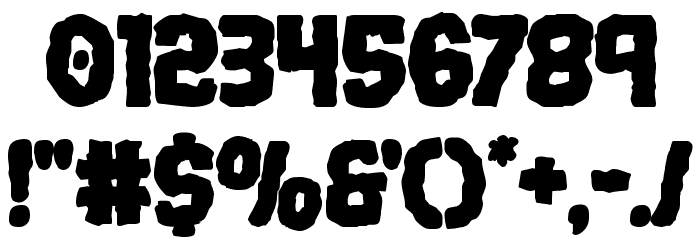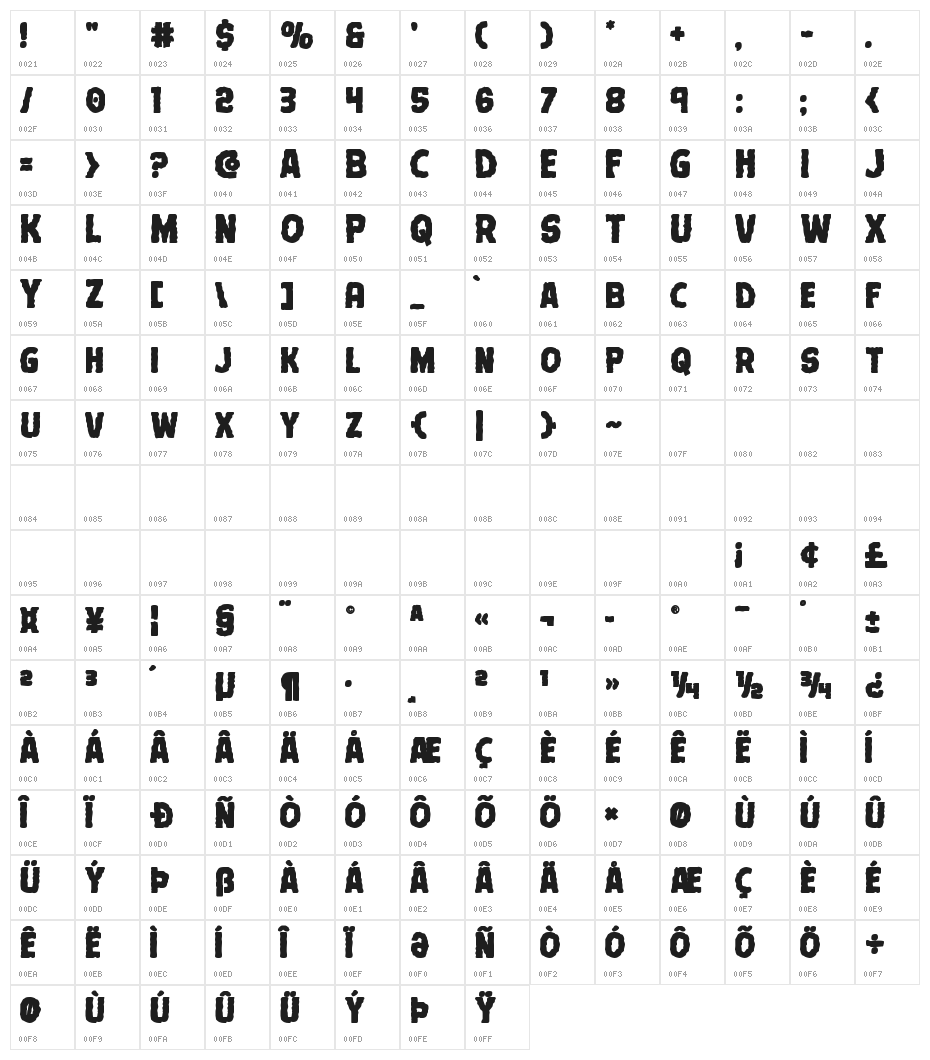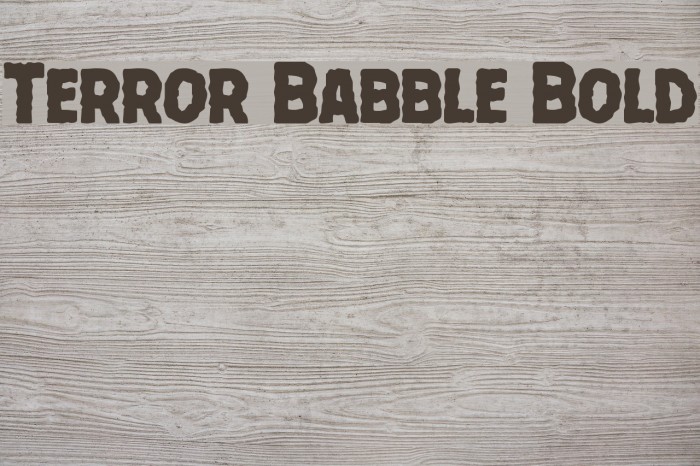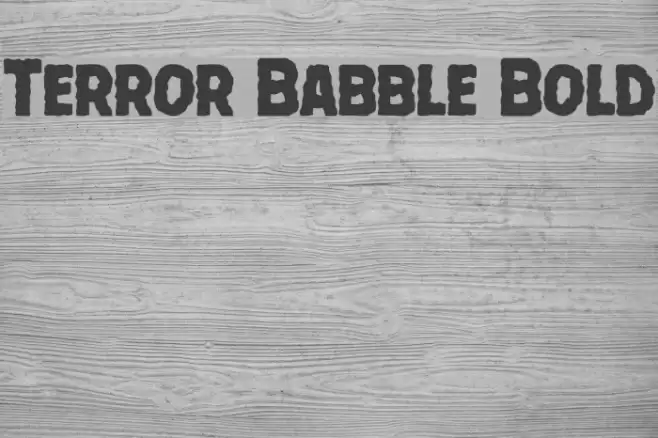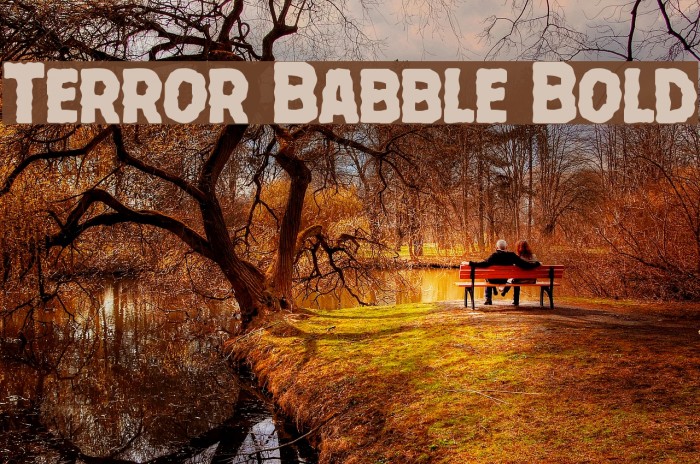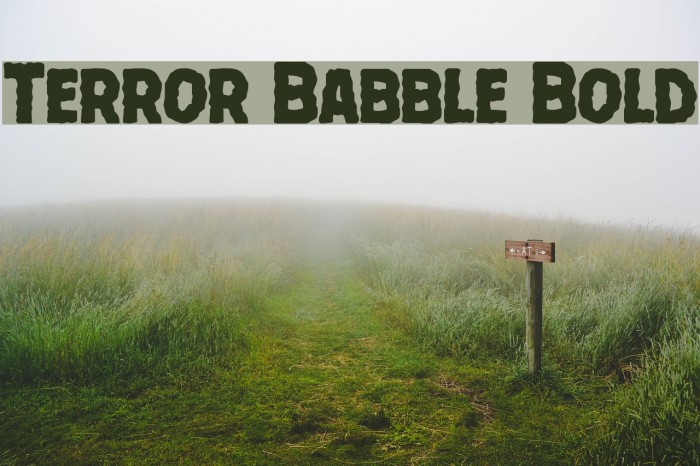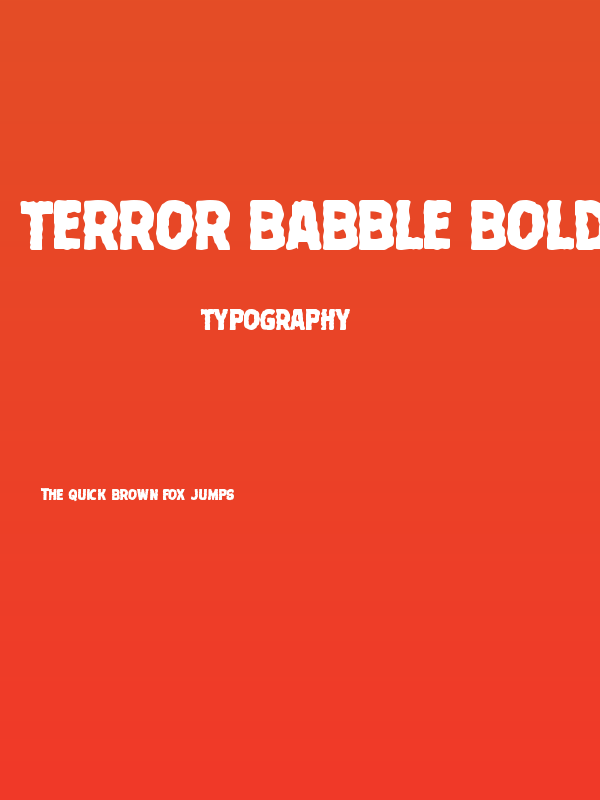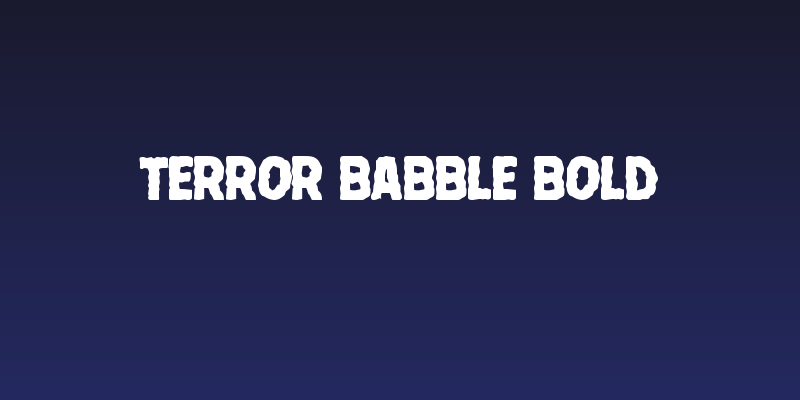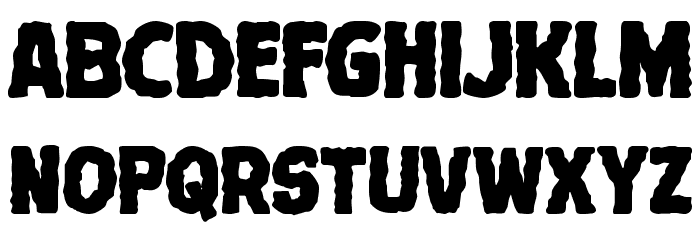
Terror Babble Bold Font
Terror Babble Bold Description
This font features a bold and rugged design, characterized by its irregular, jagged edges and thick strokes. The letters have a distressed appearance, giving them a chaotic and energetic feel. The uppercase and lowercase letters maintain a consistent style, with a playful yet intense vibe. The numbers and special characters follow the same bold and rough aesthetic, making them stand out with a unique personality. This font is perfect for projects that require a dramatic and eye-catching look, such as horror-themed designs or edgy branding.
| Proposed Projects | Ideal for horror-themed designs, edgy branding, posters, and album covers. |